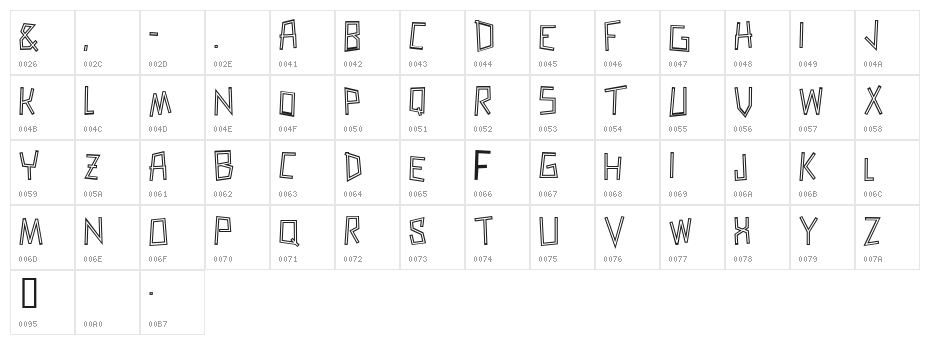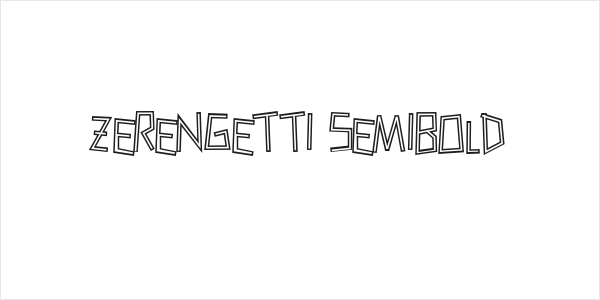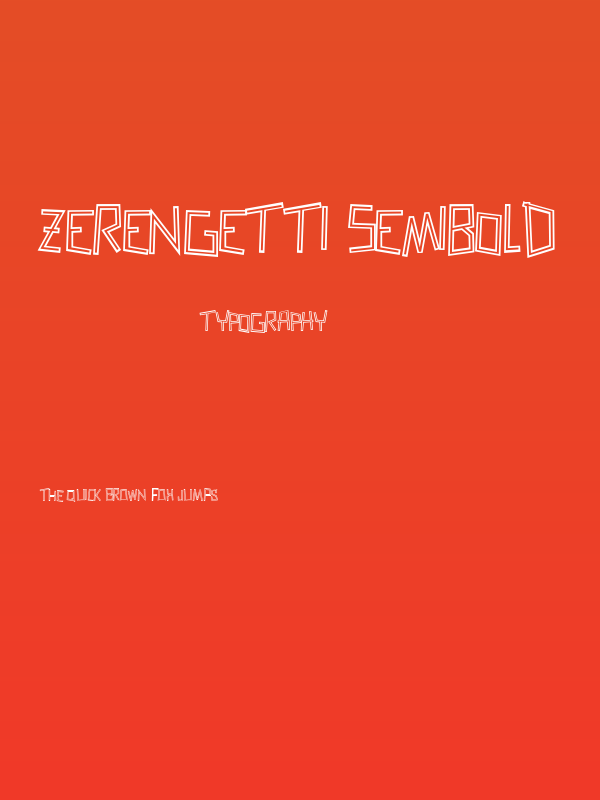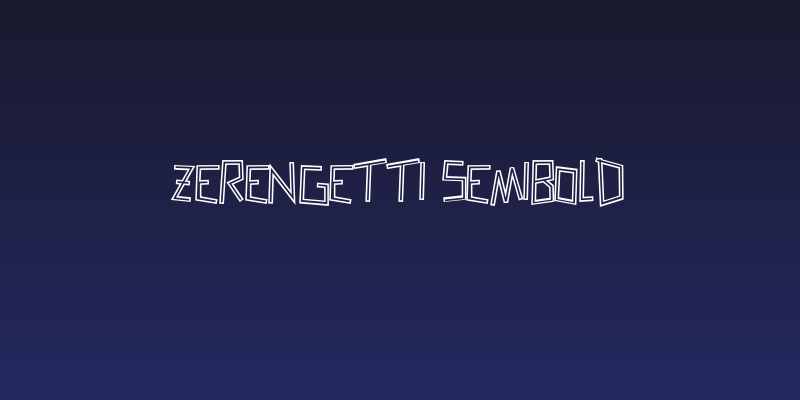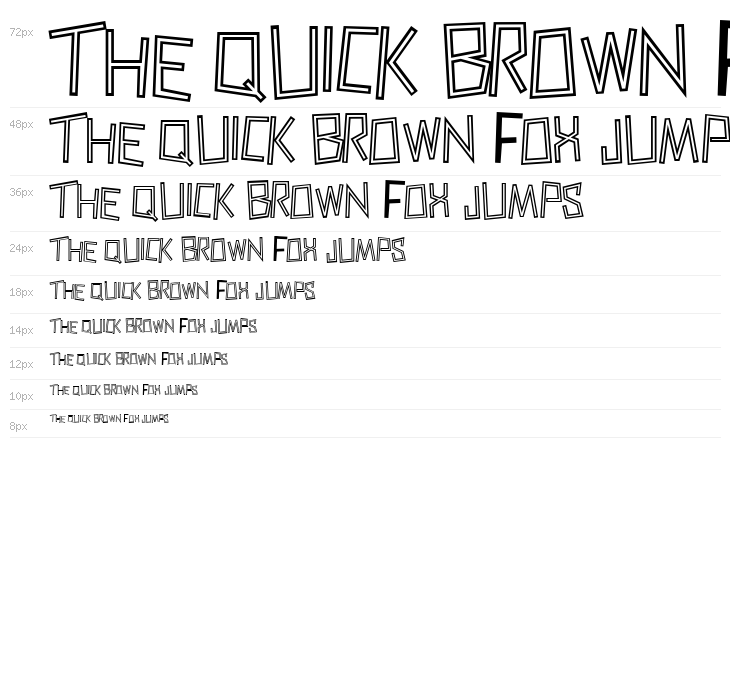
Zerengetti SemiBold Font
Zerengetti SemiBold Description
This font features a bold and geometric design with a distinctive outline style. Each character is constructed with sharp angles and straight lines, giving it a modern and edgy appearance. The uppercase and lowercase letters maintain a consistent height, contributing to a uniform look. The numbers and special characters follow the same geometric pattern, ensuring cohesion across all elements. The font's unique style makes it ideal for projects that require a strong visual impact.
| Proposed Projects | Ideal for posters, logos, and branding materials that need a striking and contemporary aesthetic. |